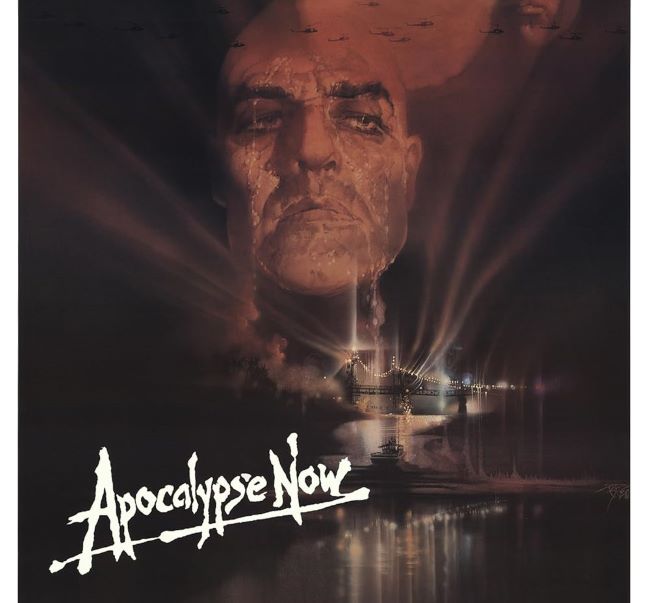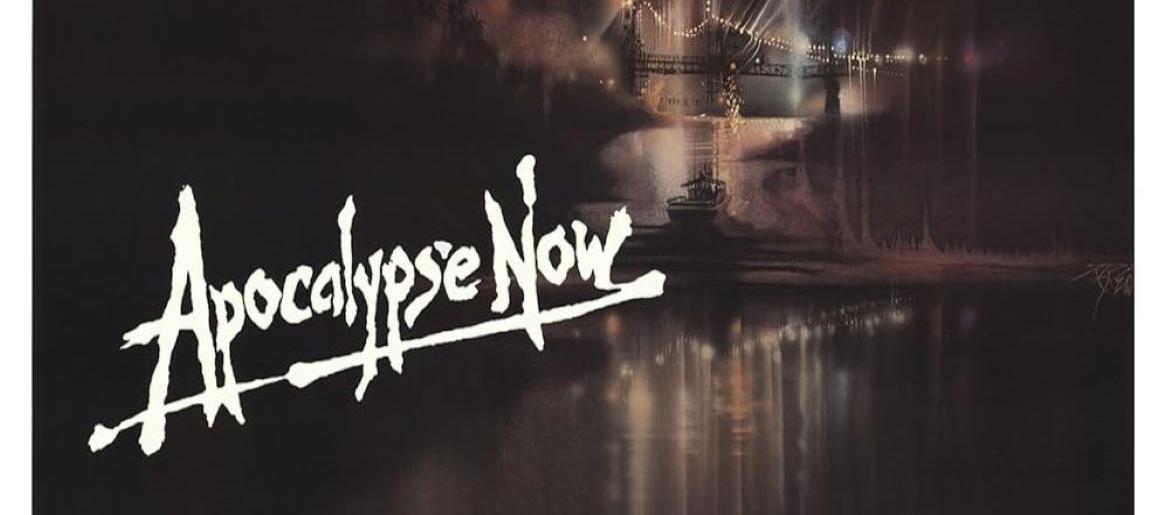
Apocalypse Now Font
Apocalypse Now Font emerges from jungle darkness with battle-scarred letterforms that bear witness to psychological warfare and moral ambiguity. This typography bleeds authenticity through weathered serifs and distressed edges, capturing the descent into madness that defines Coppola’s nightmarish vision of conflict’s human cost.
The movie’s poster lettering Apocalypse Now Regular is bold, serifed, and slightly distressed, evoking both strength and unease. Its sharp serifs and uneven textures reflect the tumultuous journey of Captain Willard and the moral complexities faced throughout the film. Designers often choose the Apocalypse Now font when creating projects that demand gravitas, tension, or a cinematic edge.
Apocalypse Now Font dominates military history publications, anti-war documentaries, survival game branding, and veteran memorial projects. Its commanding presence communicates trauma and resilience simultaneously—typography that’s survived hell and returned transformed.
This font whispers “the horror” while shouting defiance, proving letters can carry the weight of entire wars.